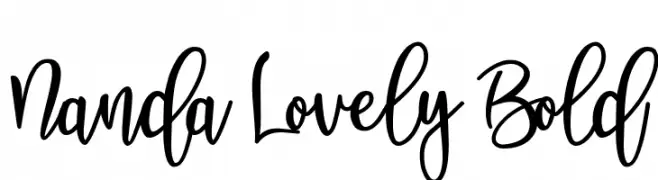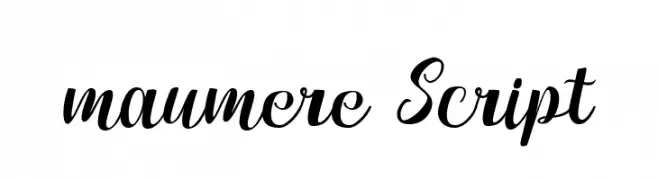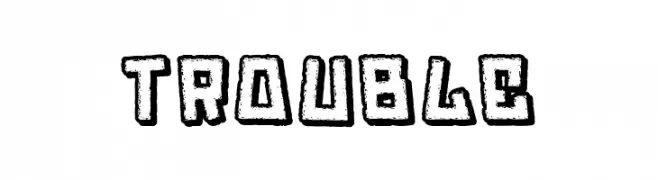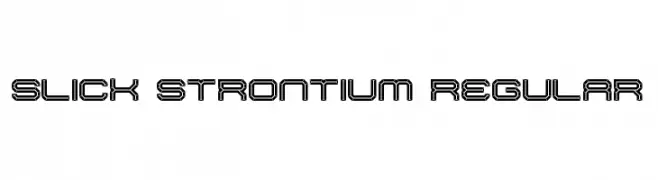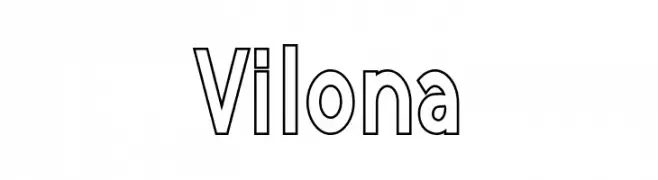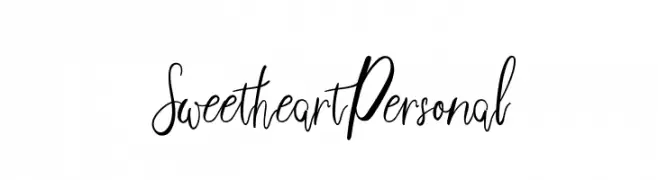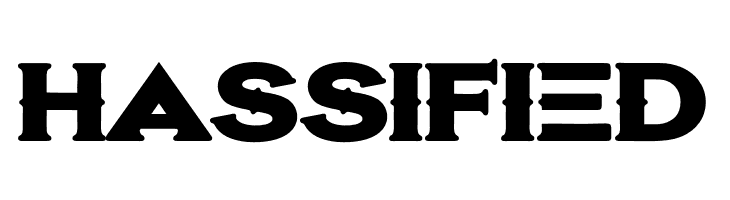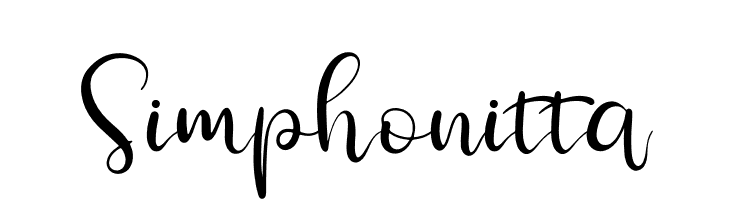
An elegant, decorative script font with intricate swirls and flourishes.
A graceful and elegant script font with flowing cursive letters.
A bold, flowing script font with expressive, interconnected strokes.
A festive, ornament-adorned font perfect for holiday projects.
A bold, italicized font with strong, thick strokes and a dynamic slant.
A flowing, cursive script font with elegant, connected characters.
A bold, playful, hand-drawn font with a cartoonish style.
A futuristic, geometric font with bold outlines and sharp angles.
A modern, geometric sans-serif font with outlined characters for a sleek, minimalistic look.
A playful, romantic cursive script with dynamic strokes and a handwritten feel.